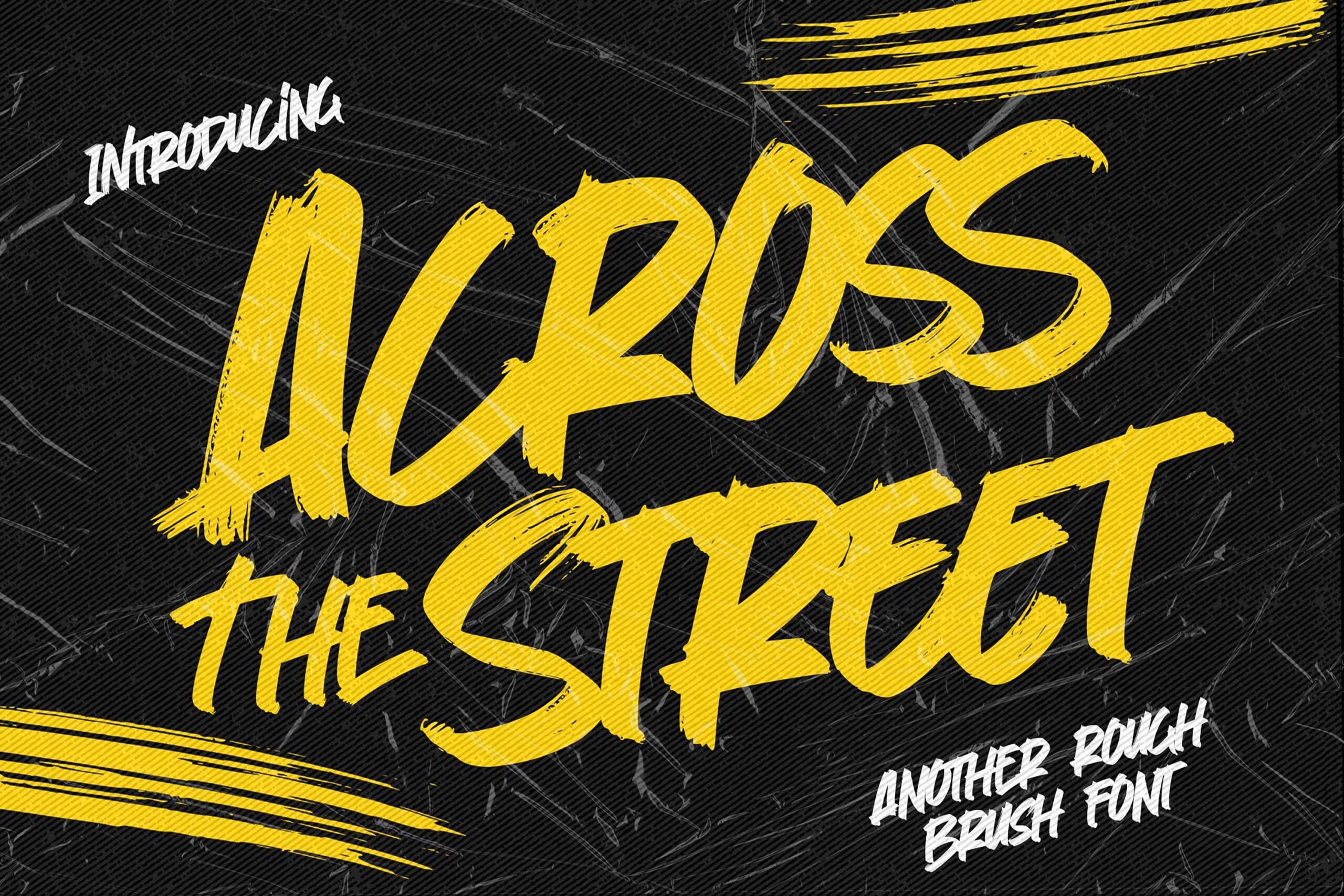
Across The Street – Another Rough Brush Font , modern style and dramatic movement that is written casually and quickly.
The best for labels, poster, project designs look modern, authentic and fun. It’s perfect for labels, quotes, posters, DIY projects, branding, packaging, greeting cards, websites, photography overlays, signs, scrapbooking, tags and so much more! That is why Across The Street has a textured, and strong characteristic more natural look. You can activate Ligatures glyphs OpenType panel.